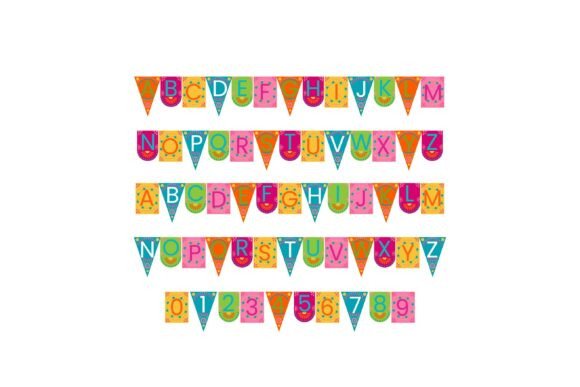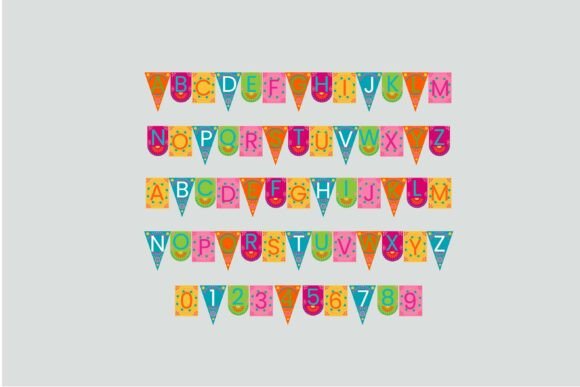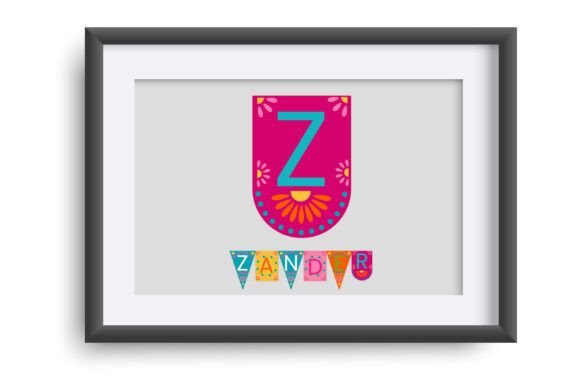
Introduction to Picado Font
You’ve finally landed that dream design project – a vibrant festival poster or a boutique holiday market logo. As you brainstorm ideas, you stumble upon a mesmerizing design concept that sparks your creativity. It’s the perfect blend of traditional folk decorations and modern flair, instantly elevating your project’s visual appeal. This is where Picado Font comes in – a full-color SVG font that embodies the essence of a “festive-and-fluttering” soul.
What sets Picado Font apart is its unique ability to capture the rhythmic essence of “papel picado” banner frames, making it an ideal design resource for creative projects. With its clean, geometric letterforms and a balanced structural weight, this font is a high-quality addition to any designer’s toolkit. Plus, its transparent background and joyful palette make it a versatile choice for a wide range of applications, from social media headers to seasonal festival signage.
Key Features of Picado Font
- High-quality design suitable for creative projects, including graphics, logos, and typography.
- Transparent background, allowing for easy integration into various design backgrounds.
- Designed to be versatile and adaptable, making it suitable for various design applications, from web design to print materials.
Honest Review: Picado Font
As a designer, I’m always on the lookout for unique and high-quality fonts to enhance my creative projects. Recently, I had the chance to experiment with the Picado Font, and here’s my honest take on it.
What works well: ✨ The Picado Font boasts a beautiful, intricate design that’s perfect for adding a touch of elegance to any project. I particularly love how the font’s transparent background allows for seamless blending with images and other design elements. The high-quality design also makes it suitable for a wide range of creative projects, from brochures to social media graphics.
What doesn’t: ⚠️ One limitation I noticed was the font’s limited character set, which might be a drawback for designers who need a comprehensive font library. Additionally, the font’s file size can be quite large, which may slow down your design workflow.
- Unique and elegant aesthetic
- Transparent background for seamless blending
- Limited character set
- Large file size
Picado Font
The Picado Font is a high-quality design resource perfect for creative projects. With a transparent background, this font is highly versatile and can be used in a variety of applications.
To get the most out of the Picado Font, experiment with different combinations of colors and styles. You can also use it in conjunction with other design elements to create a cohesive look.
The Picado Font is ideal for a variety of creative projects, including logos, branding materials, and social media graphics. It’s also a great choice for designers and artists looking to add a unique touch to their work.